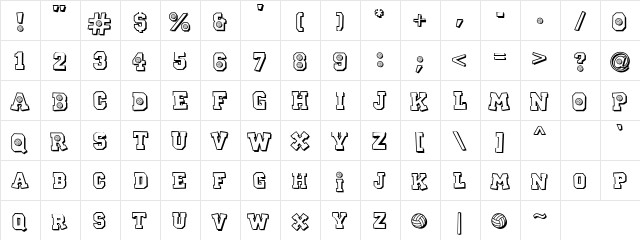
CK Sports Volleyball Regular
Design Context for CK Sports Volleyball Typeface
CK Sports Volleyball brings high-energy athletic personality to the page — its confident, muscular forms are built for impact.
A natural choice for gym brands, fantasy sports, jersey lettering, and action-driven headlines.
Pro Tip: Use CK Sports Volleyball in all-caps headlines where its athletic energy can fully express itself. Pair with a solid, simple sans for supporting text.